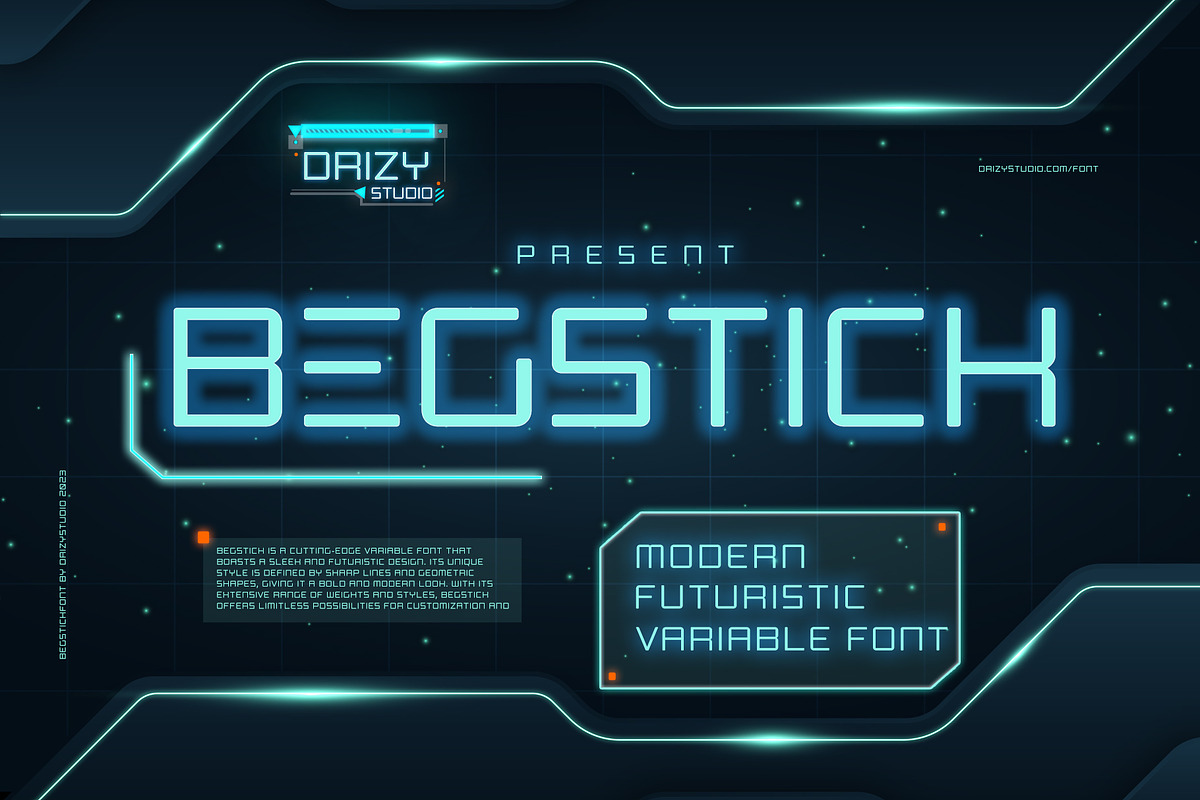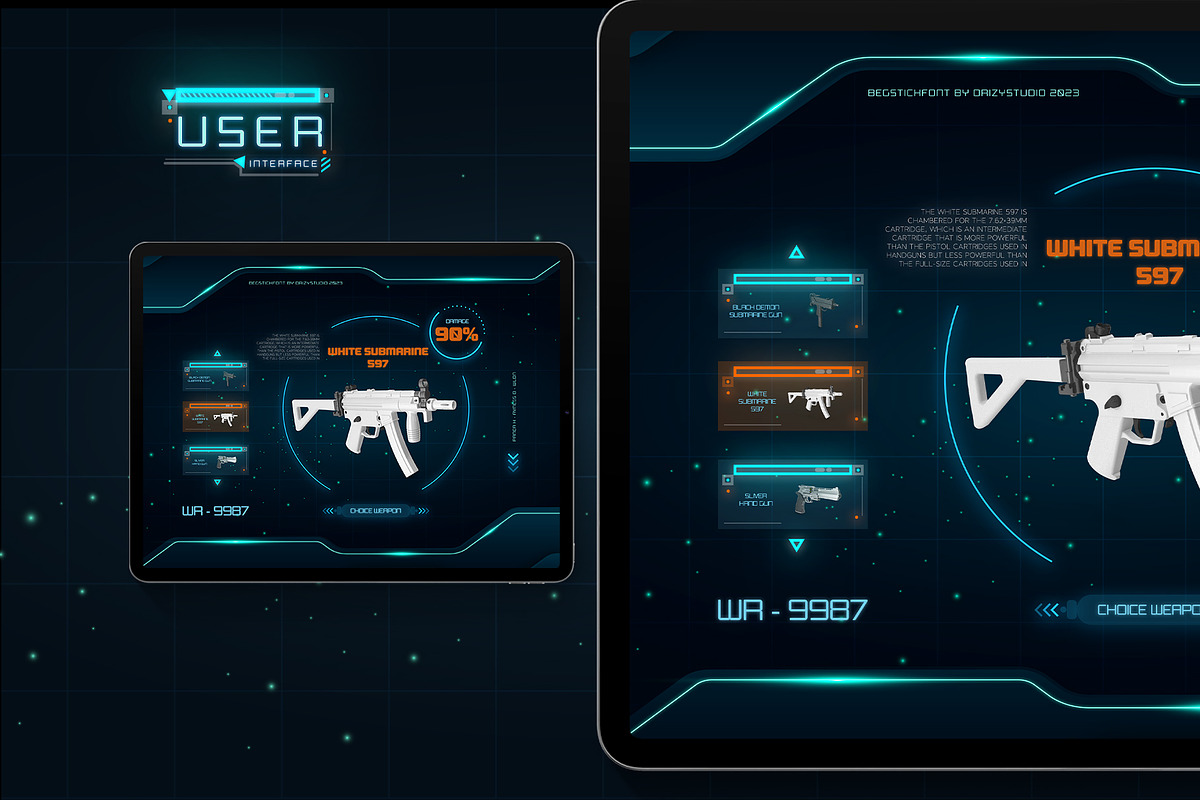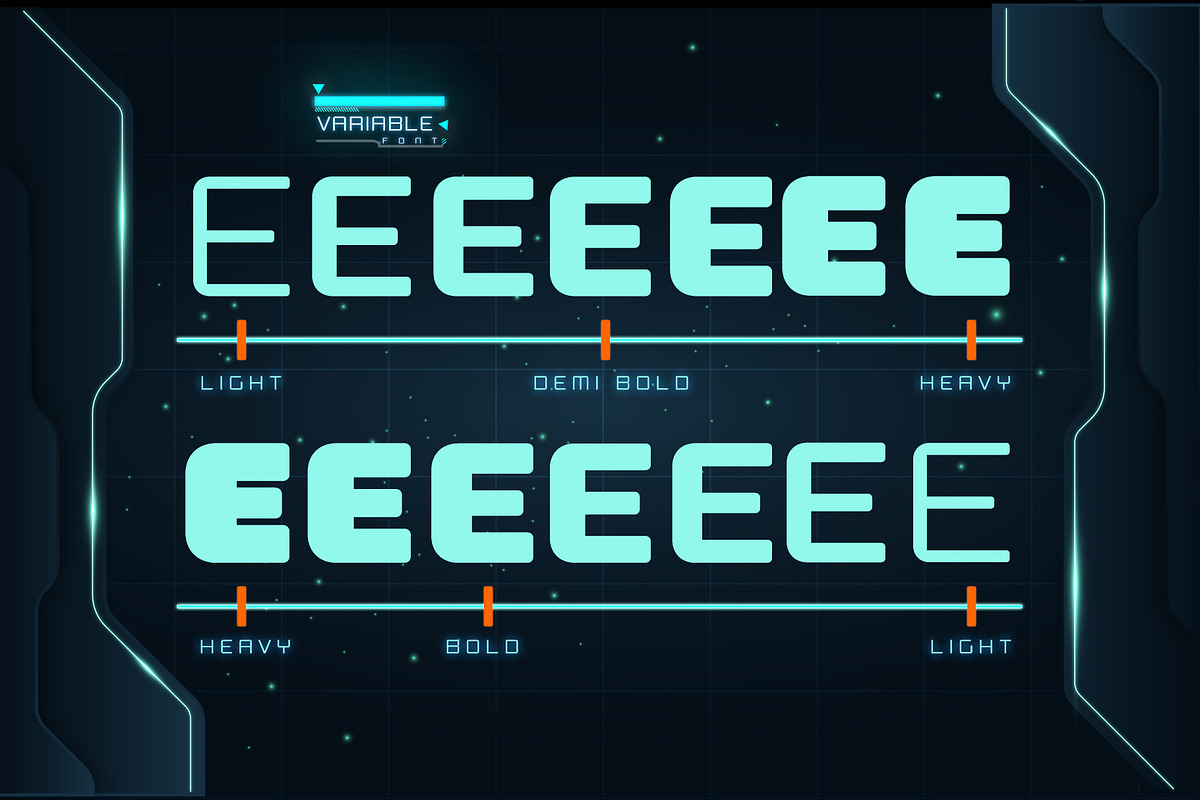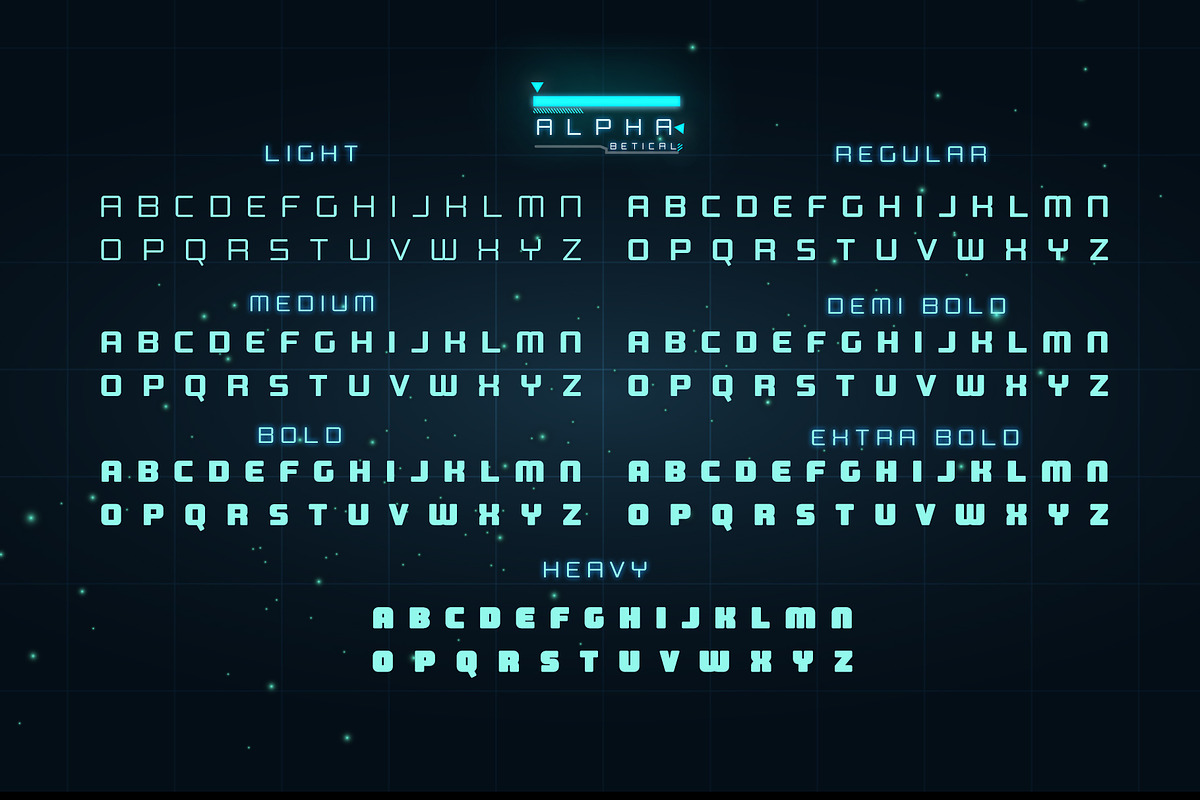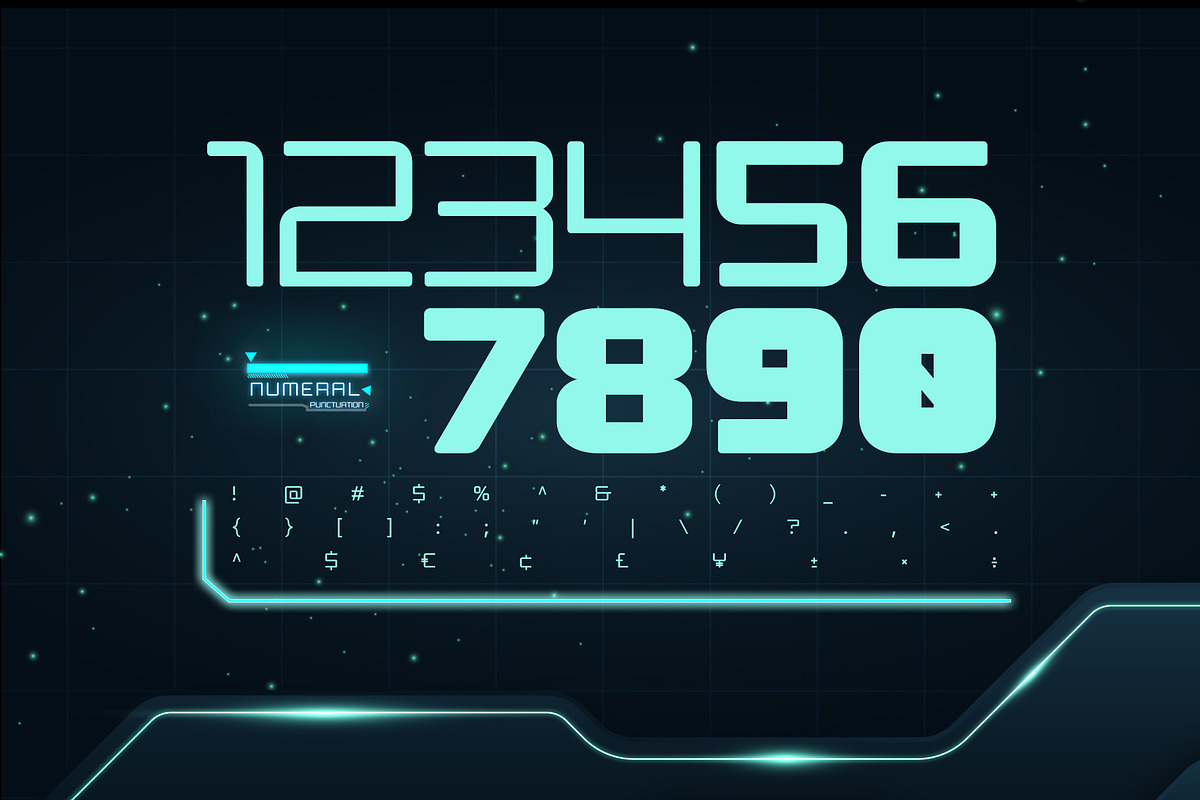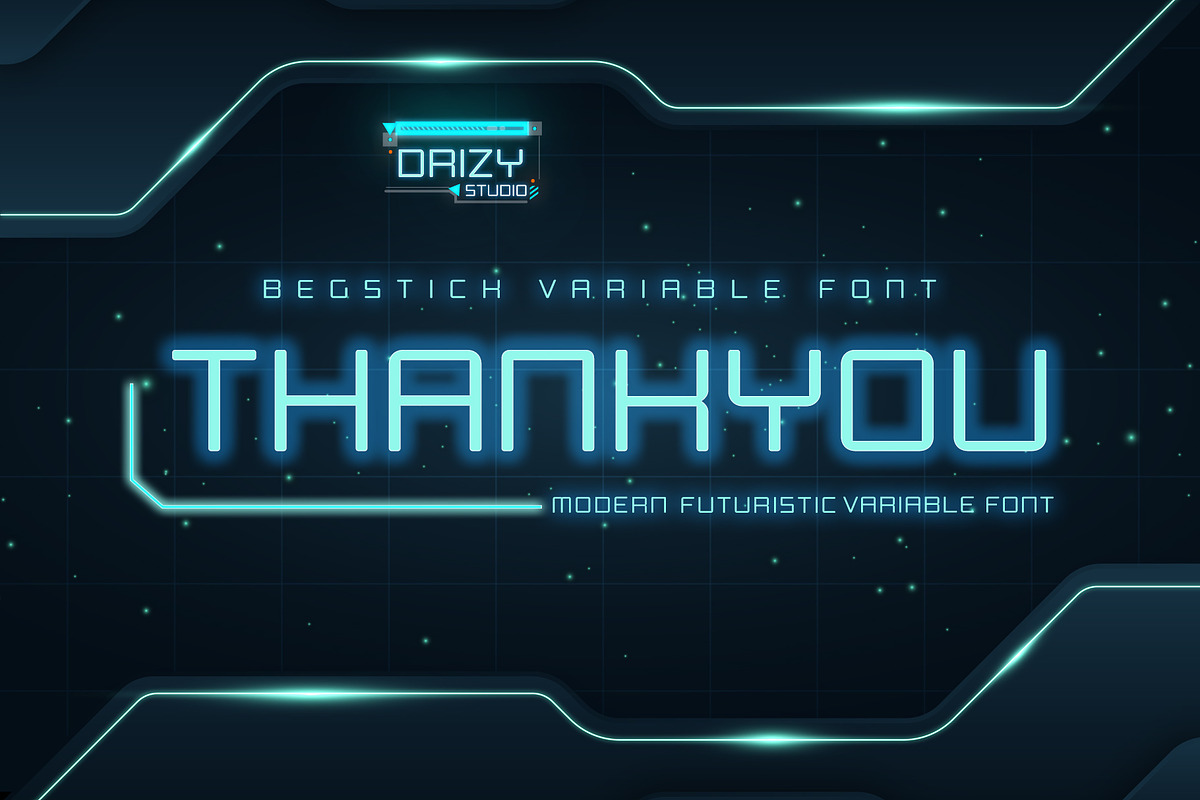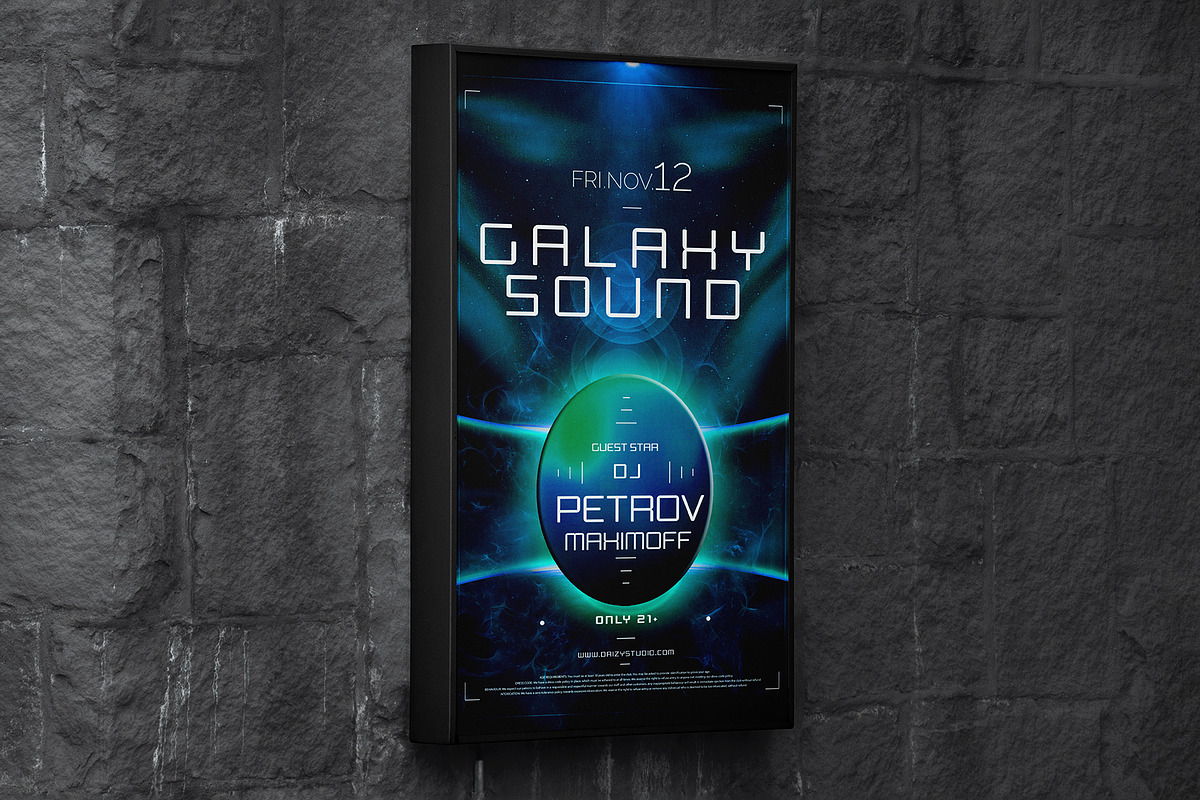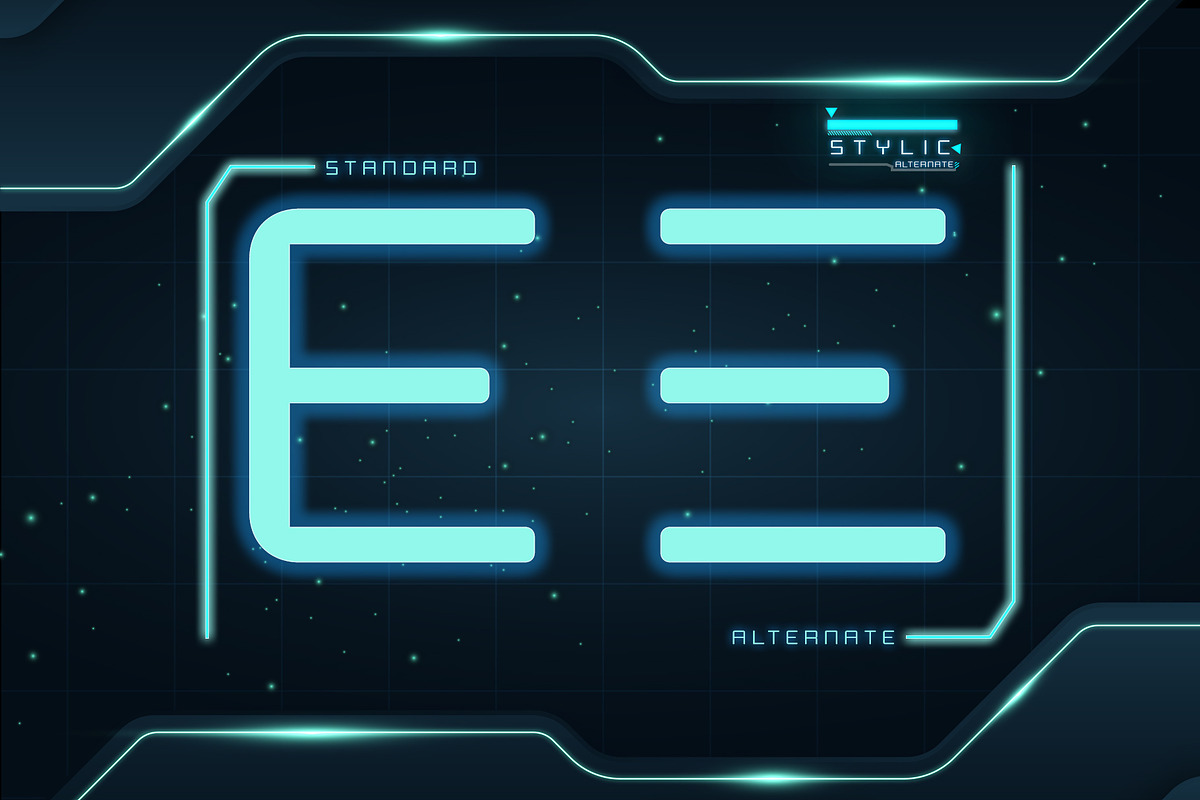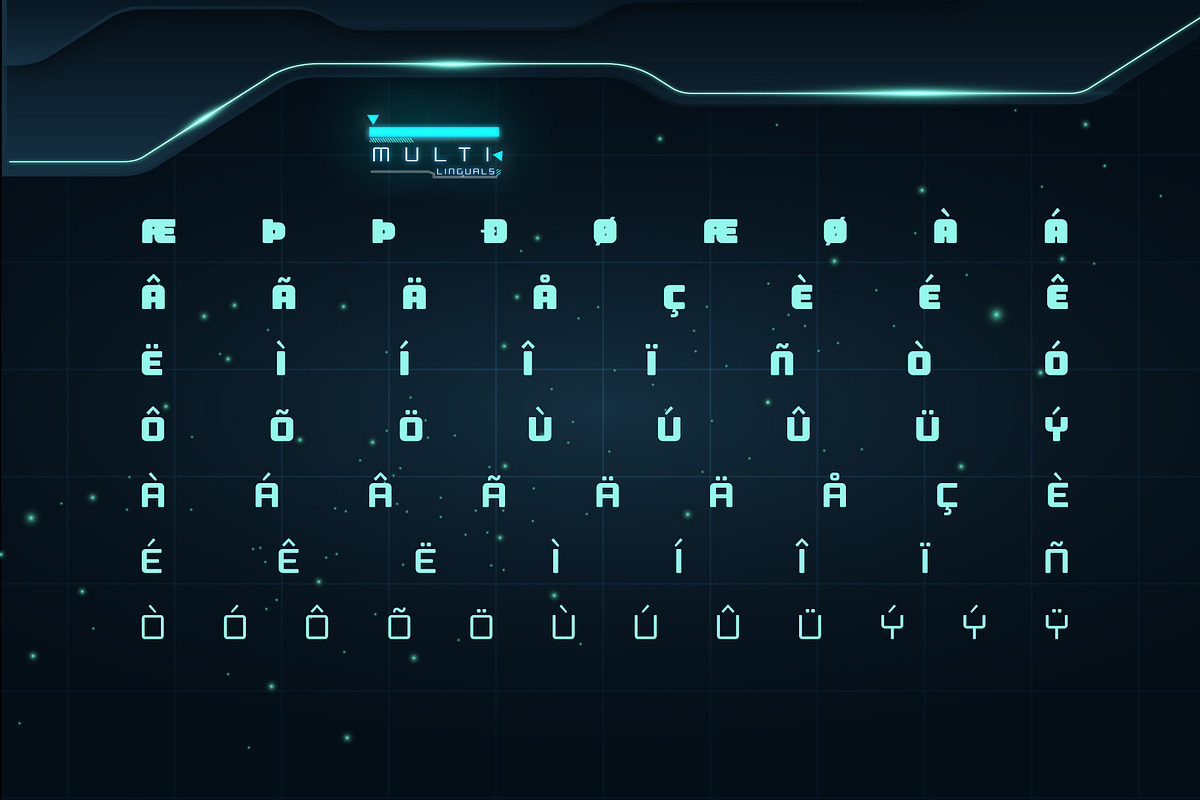
Begstick Modern Futuristic Font
Begstick Modern Futuristic Variable Font Begstick is a Modern Futuristic Variable Font from Drizy Studio. Ready to take your designs to the next level? Begstick is the font of the future - sleek, dynamic, and endlessly customizable. Let your creativity run wild with this modern, futuristic variable font and make your projects stand out from the crowd!
Begstick features:
Alternate Punctuation & Numbers Multilingual Support